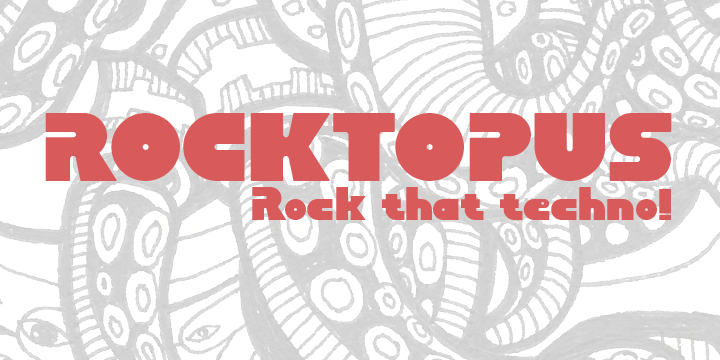
Rocktopus
by Okaycat
The Rocktopus Font Family was designed by Natsuko Hayashida and published by Okaycat. Rocktopus contains 2 styles. More about this family
Rocktopus is a minimal fat blocky letter font. Each letter is designed for simplicity and maximum style points. Check it out! Rocktopus is extended, containing West European diacritics & ligatures, making it suitable for multilingual environments & publications.
Designers: Natsuko Hayashida
Foundry: Okaycat